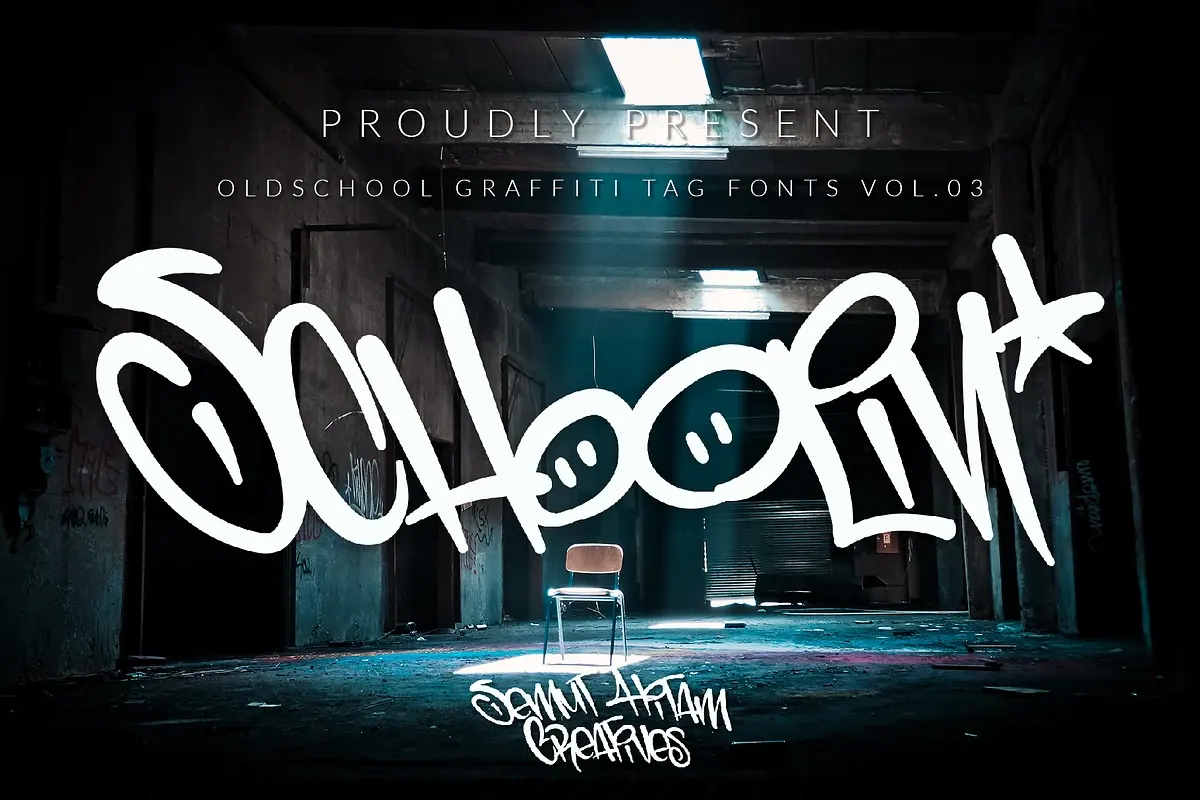
Schoolin – Graffiti Fonts Free Download is a bold and expressive typeface that channels the raw energy of street art and urban culture. With its spray-painted style and edgy letterforms, this font is perfect for music posters, apparel designs, hip-hop branding, or any project that needs an attitude-packed visual punch.
Its freestyle, hand-drawn aesthetic gives it a rebellious vibe—ideal for grabbing attention and making a statement. Whether you're designing for skate brands, event flyers, or digital art pieces, Schoolin brings authenticity and street-smart flair.
Designers love Schoolin for its dynamic personality and versatility across both print and digital formats. Ready to tag your next design with style? Grab Schoolin – Graffiti Fonts Free Download and unleash your inner artist on every canvas.